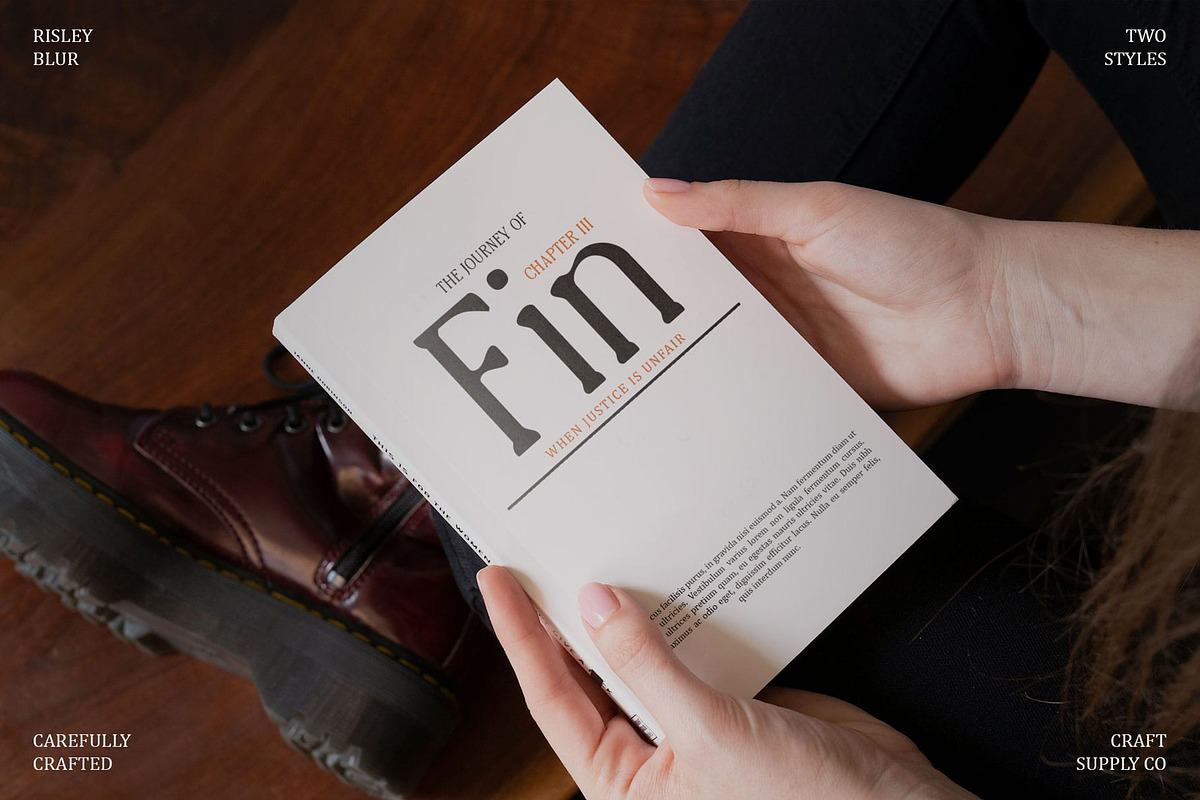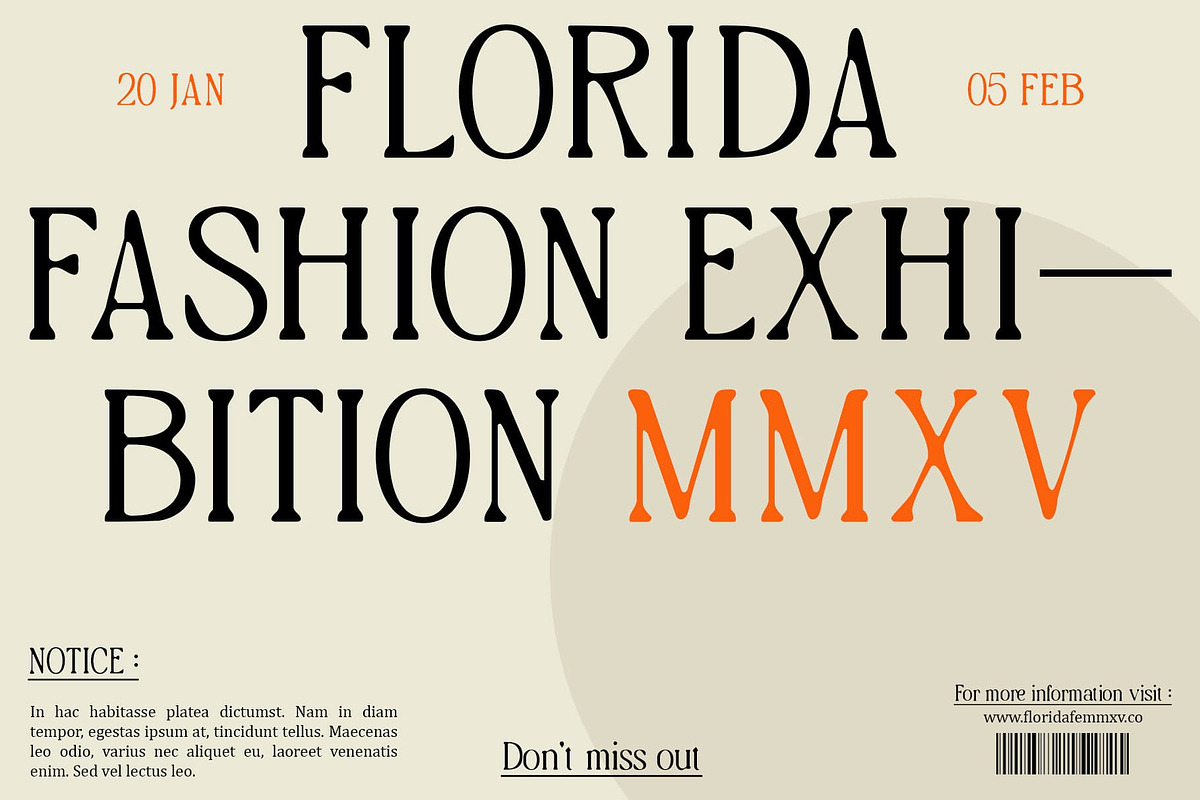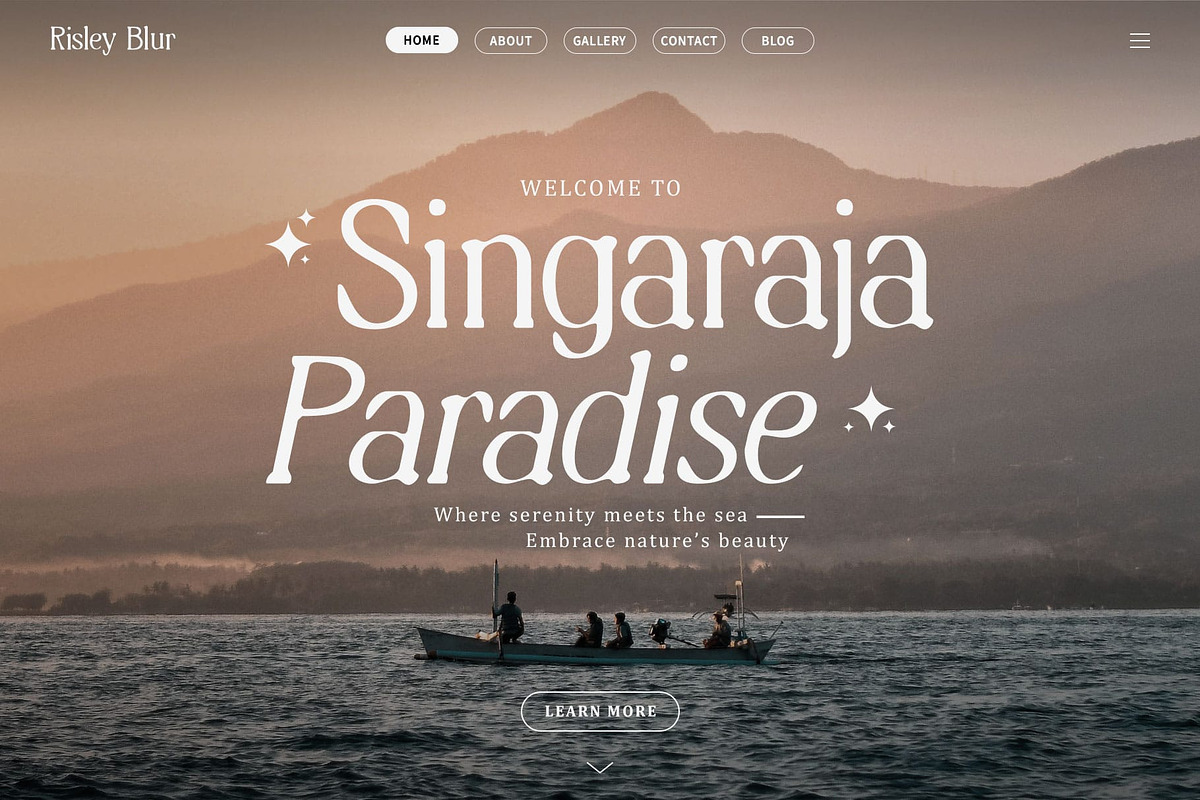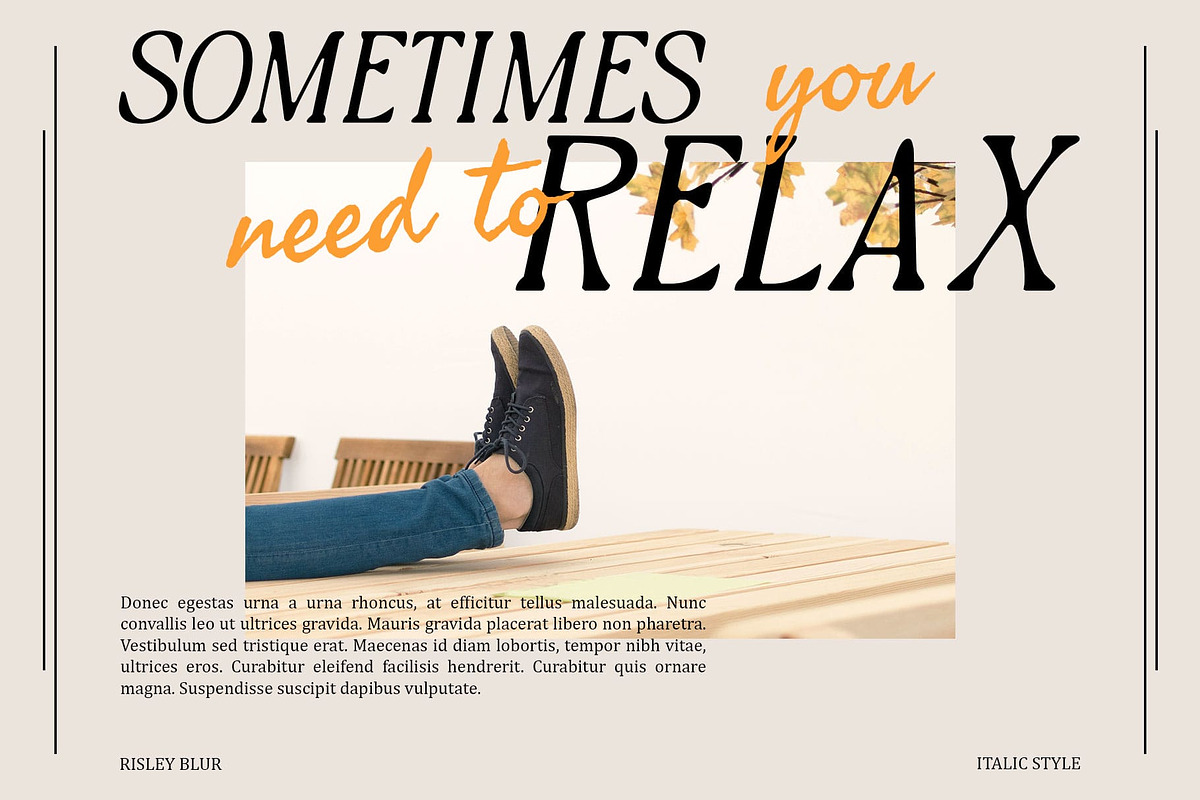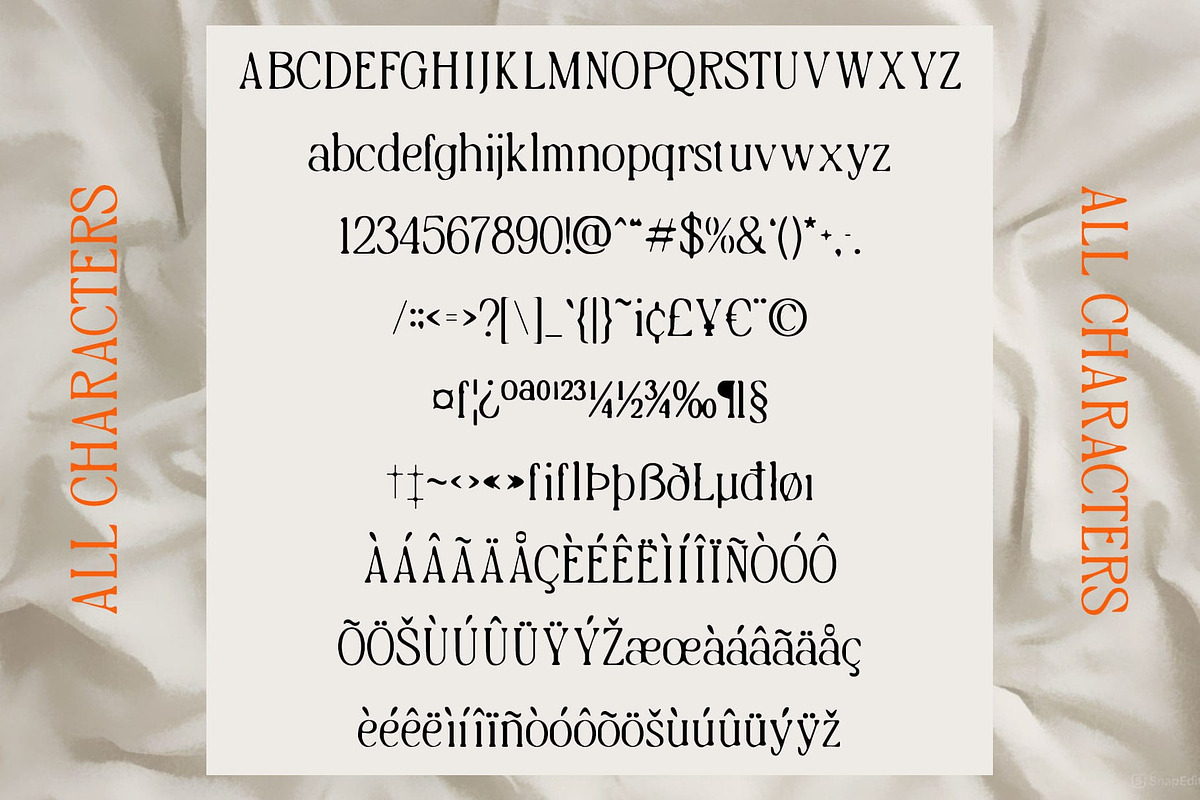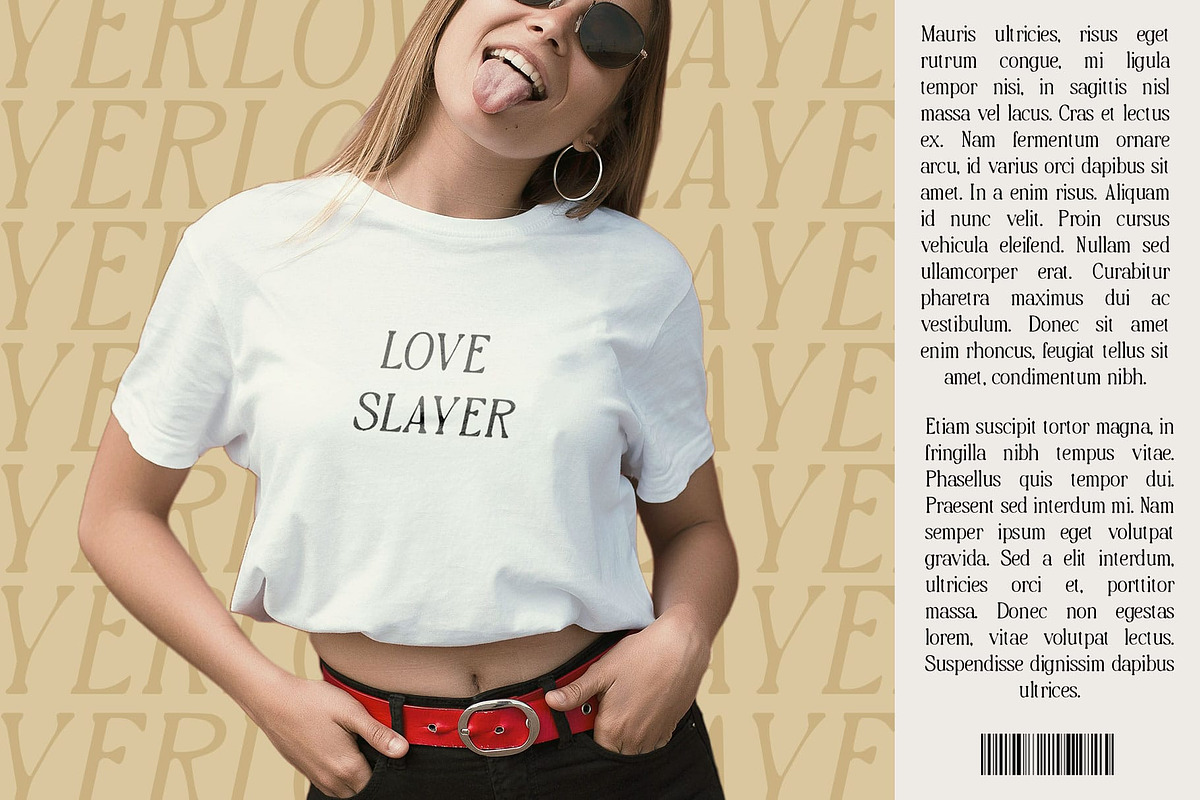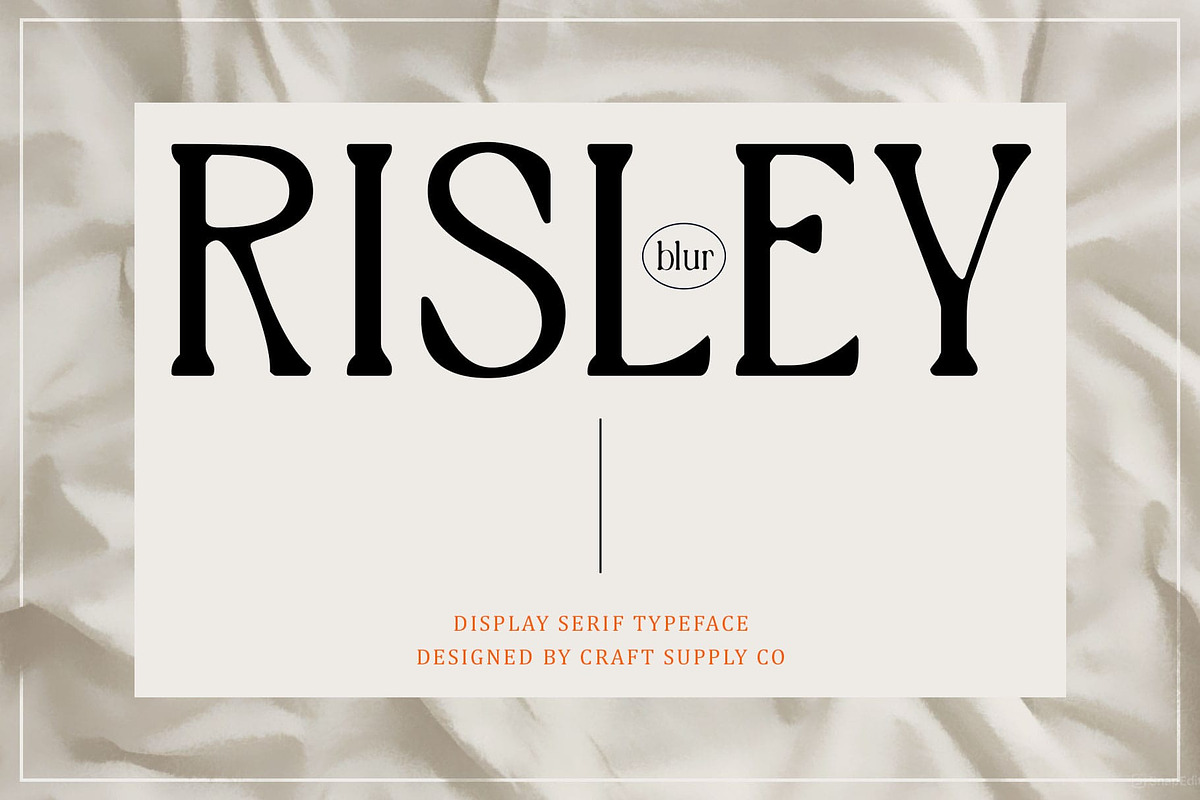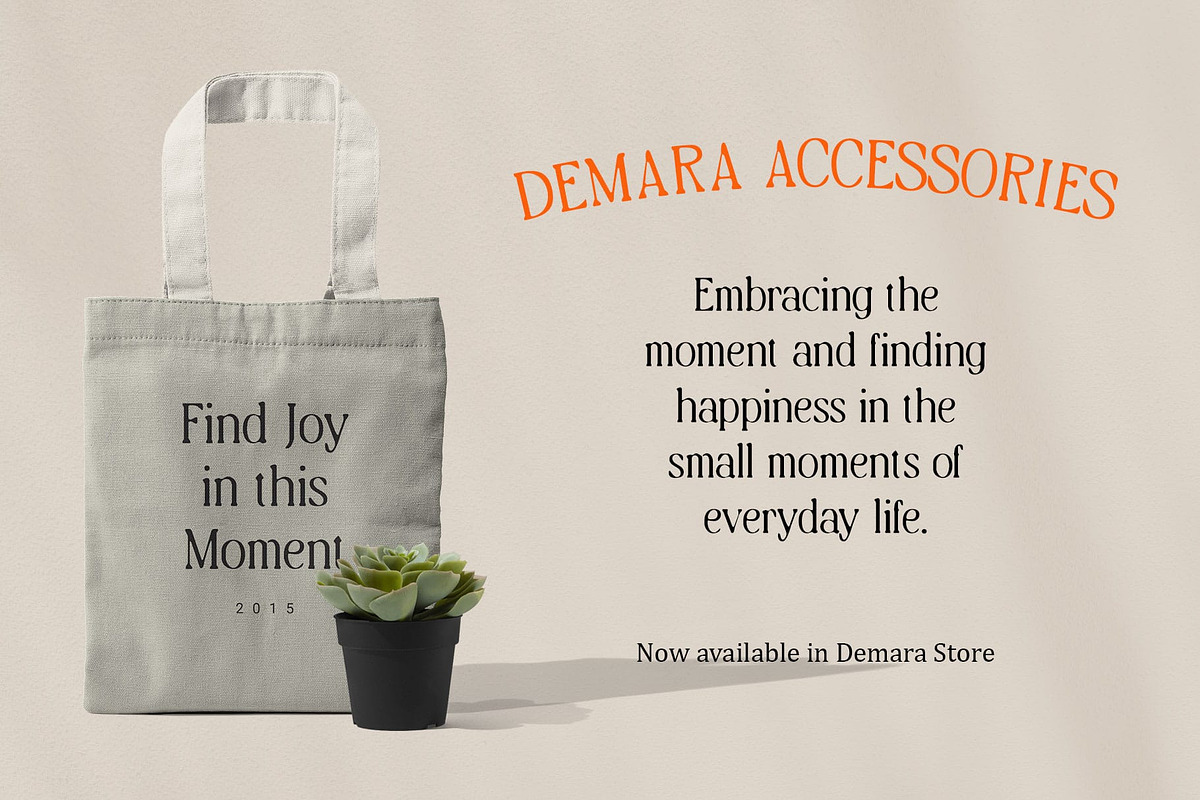
Risley Blur
Risley Blur: Modern and Elegant Serif Font with Blur Effect
Luxurious and Neat Impression
Risley Blur is a modern and elegant serif font that exudes luxury and neatness, enhanced by its sophisticated blur effect. The smooth lines of this design convey a refined and polished appearance, perfect for projects that prioritize an elegant and classy aesthetic.
Artistic Touch of Blur Effect
The blur effect in Risley Blur adds an artistic dimension, complementing its elegance with a touch of creativity. This feature makes the font ideal for designs that integrate prominent creative and experimental elements while maintaining a sophisticated visual appeal.
Versatile Usage
Suitable for a variety of applications, Risley Blur seamlessly fits into both corporate and artistic contexts. Whether used in branding, editorial designs, invitations, or posters, its combination of elegance and artistic flair ensures a captivating typographic presence that stands out with its unique charm.
- Risley Blur Regular
- Risley Blur Italic